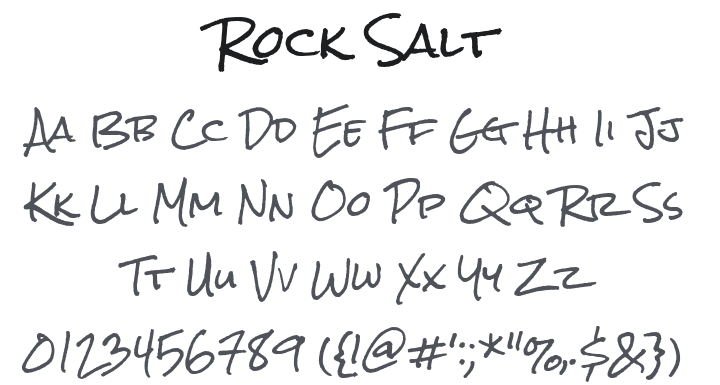
Rock Salt Font
by Sideshow
About Rock Salt
Rock Salt was hand-crafted with felt-tip markers for a personal look you can pepper throughout your next project.